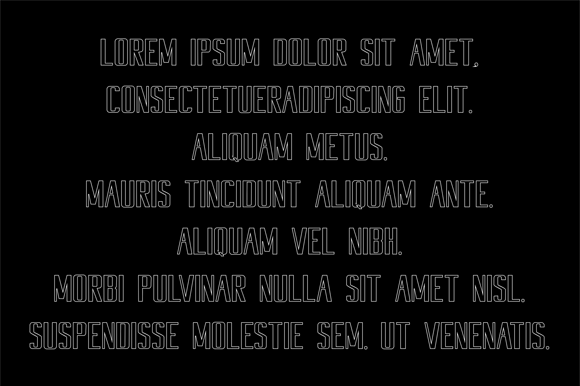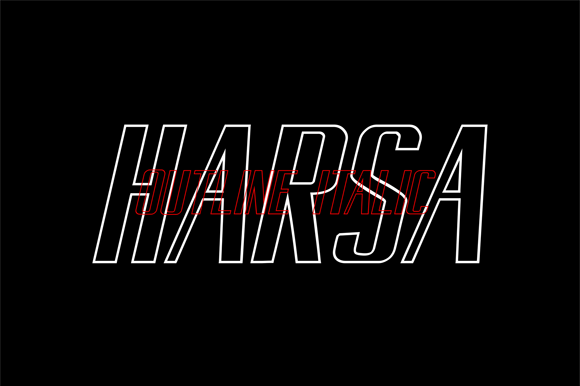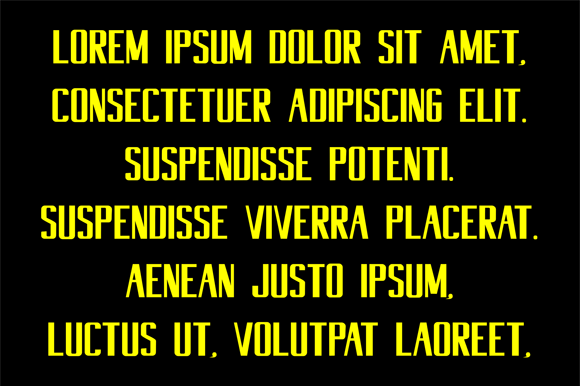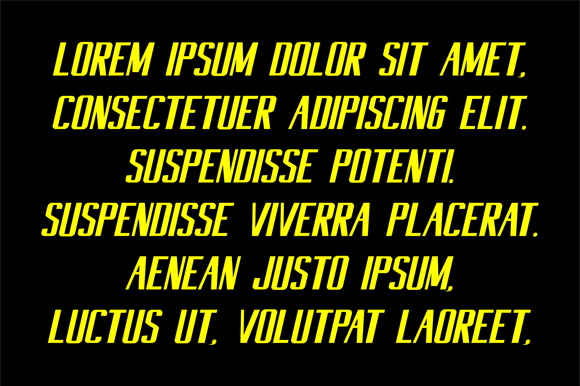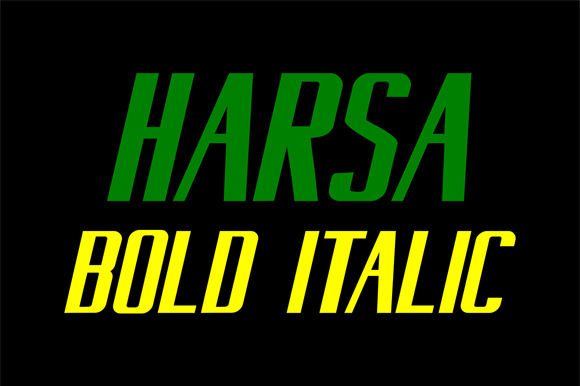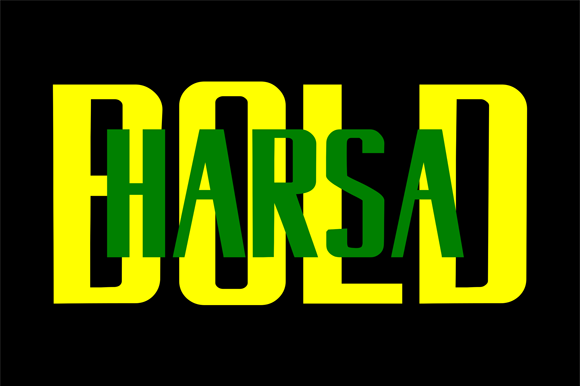
Harsa Font: Elevate Your Designs with Modern Elegance
In the world of typography, fonts play a crucial role in conveying the tone and personality of a design. For designers and crafters looking to make a statement, Harsa Font is an excellent choice. This bold and cool serif font boasts a modern vibe that’s sure to inspire your next creative project. In this article, we’ll dive into the world of Harsa Font, exploring its features, benefits, and uses.
The Essence of Harsa Font
Harsa Font is a serif font that exudes contemporary elegance. Its bold and sturdy design makes it perfect for headlines, titles, and any text that needs to stand out. The font’s modern vibe is characterized by clean lines, subtle curves, and a sophisticated feel. Whether you’re working on a branding project, website design, or marketing materials, Harsa Font is an excellent choice for adding a touch of sophistication.
Key Features of Harsa Font
- Bold and Cool Design: Harsa Font features a bold and cool design that’s perfect for making a statement.
- Serif Elegance: The font’s serif details add a touch of elegance and sophistication to any design.
- Modern Vibe: Harsa Font’s modern vibe makes it perfect for contemporary designs that require a fresh and stylish feel.
- High Versatility: The font is highly versatile and can be used for a wide range of design projects, from branding and advertising to web design and more.
Benefits of Using Harsa Font
So, why choose Harsa Font for your next design project? Here are just a few benefits of using this amazing font:
- Instant Recognition: Harsa Font’s bold design ensures instant recognition and attention-grabbing headlines.
- Professional Look: The font’s modern and elegant design gives your designs a professional look that’s sure to impress.
- Easy to Read: Despite its bold design, Harsa Font is easy to read, making it perfect for body text and longer content.
- Customizable: The font is highly customizable, allowing you to adjust the size, color, and style to suit your design needs.
Uses of Harsa Font
Harsa Font is an incredibly versatile font that can be used for a wide range of design projects, including:
- Branding and Logo Design: Use Harsa Font to create bold and memorable logos that make a statement.
- Advertising and Marketing: The font’s bold design makes it perfect for headlines and titles in advertising and marketing materials.
- Web Design: Harsa Font can be used for website headers, titles, and other design elements to add a touch of modern elegance.
- Print Design: The font is perfect for print design projects, such as brochures, flyers, and business cards.
Tips for Using Harsa Font
To get the most out of Harsa Font, here are a few tips to keep in mind:
- Pair with Other Fonts: Experiment with pairing Harsa Font with other fonts to create a unique and visually appealing design.
- Adjust Font Size and Color: Adjust the font size and color to suit your design needs and ensure maximum impact.
- Use for Headlines and Titles: Use Harsa Font for headlines and titles to add a touch of modern elegance and sophistication.
| Font Name | Harsa Font |
| Author | Astageni |
In conclusion, Harsa Font is an excellent choice for designers and crafters looking to add a touch of modern elegance to their designs. With its bold and cool serif design, modern vibe, and high versatility, this font is perfect for a wide range of design projects. By following the tips outlined in this article, you can get the most out of Harsa Font and create stunning designs that make a statement.